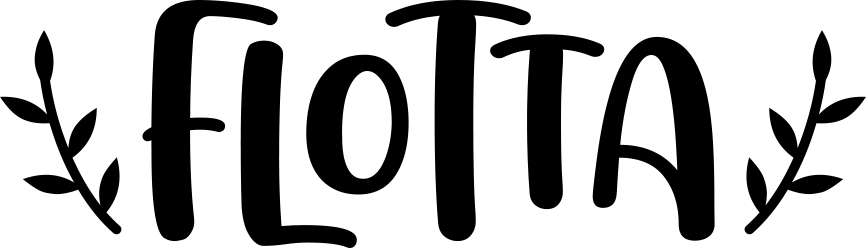
Flotta Font
We have a fluid handwriting font for you today with striking and cute all-caps lettering. Flotta is very feminine and uses ornaments that make it romantic and playful.